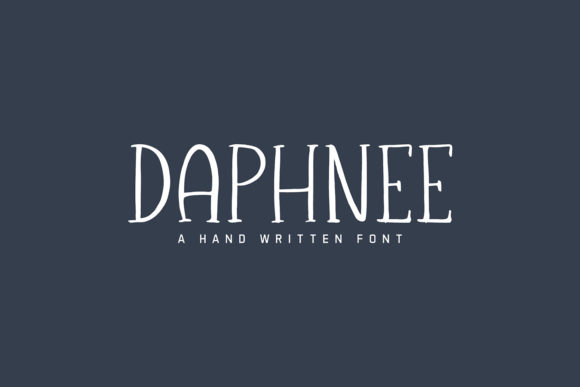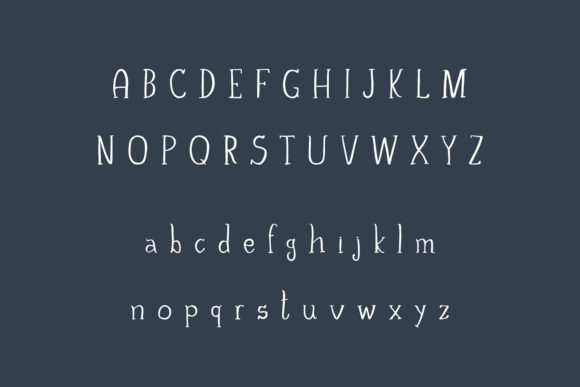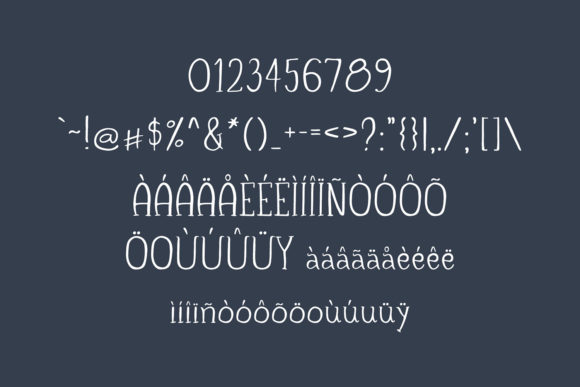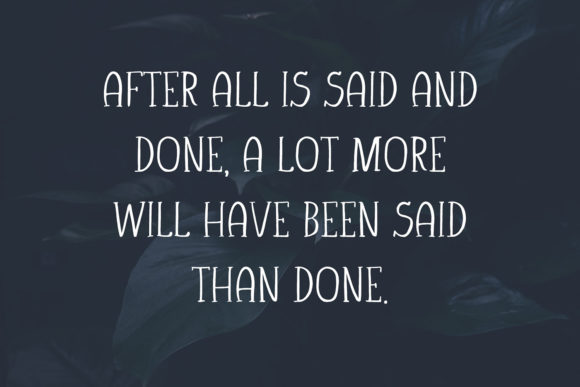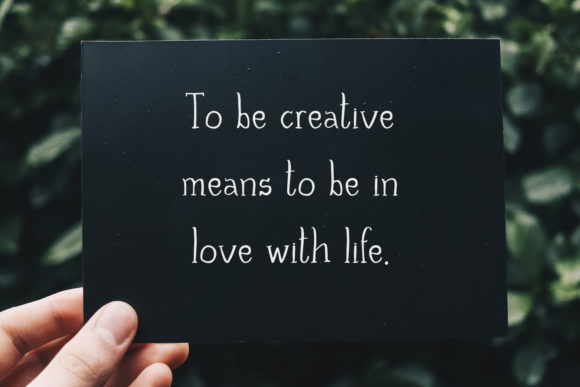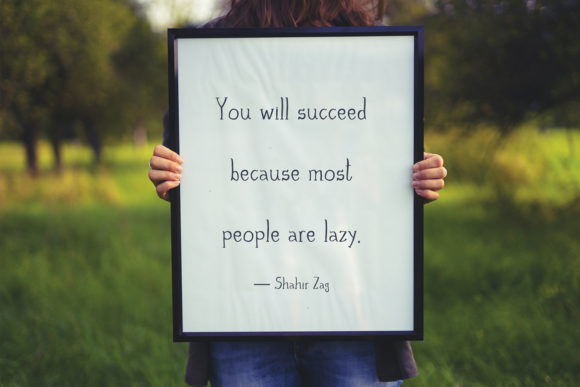
Daphnee
Daphnee: A Sweet and Charming Slab Serif Font
Daphnee is a distinctive slab serif font that combines sweetness with creativity and charm. This versatile typeface is designed to enhance a wide range of creative projects, making it an incredibly useful addition to any designer’s toolkit.
Key Features of Daphnee
• Sweet Design: Offers a delightful and endearing appearance that appeals to the eye.
• Creative Style: Features unique letterforms that spark imagination and originality.
• Charming Aesthetic: Provides a captivating look suitable for various applications.
• Slab Serif Structure: Incorporates the characteristic thick, rectangular serifs typical of slab serif fonts.
• Versatile Application: Suitable for a wide range of projects, from packaging to web layouts.
Ideal Uses for Daphnee
Daphnee’s unique characteristics make it particularly well-suited for:
• Packaging design
• Presentations and slideshows
• Logo creation and branding
• Headlines and titles
• Lettering projects
• Posters and advertisements
• Quotes and inspirational text
• Magazine headings
• Web layouts and digital content
• Invitations and greeting cards
When incorporating Daphnee into your designs, consider these tips:
• Use for headlines or short blocks of text to showcase its sweet and charming style
• Experiment with different sizes to highlight the font’s unique creative details
• Take advantage of its versatility across various creative projects
Daphnee is an excellent choice for designers looking to add a sweet, creative, and charming slab serif font to their typographic toolkit. Its ability to enhance various design projects with its unique aesthetic makes it stand out in the world of typography. Whether you’re working on logo designs for brands that want to convey warmth and creativity, creating layouts for invitations, or developing content that requires a touch of sweetness and charm, Daphnee offers the perfect blend of style and versatility.
Furthermore, Daphnee’s adaptability allows it to shine in various contexts. From vintage-inspired designs with a modern twist to more playful layouts that need a touch of sophistication, this font can elevate your projects. Its sweet yet creative style works particularly well in designs that require a thoughtful and engaging mood.
In conclusion, Daphnee is a font that truly captures the essence of sweetness and creativity in typography. Its ability to work well in both charming, delicate projects and more elaborate layouts showcases its flexibility. For those looking to add a touch of sweet creativity to their work, Daphnee can even enhance themed creations with its unique, charming style. It’s the perfect choice for nearly any creative design you can think of, bringing a delightful touch to your projects.